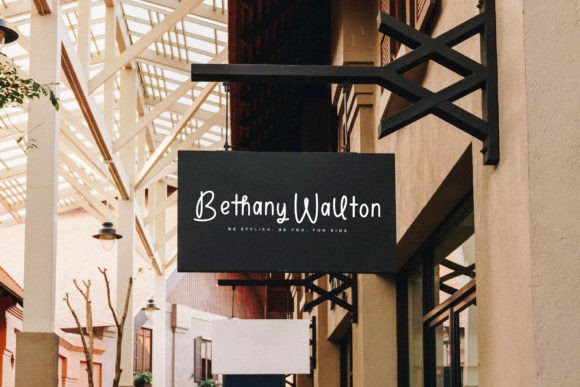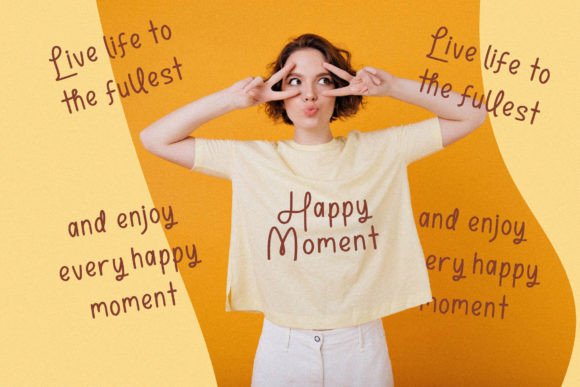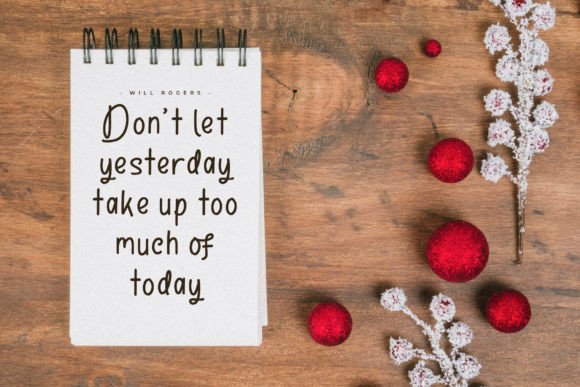
Introduction to Girlthown Font
Girlthown is a modern handwritten font suitable for any design project.
You can use it for logos, branding projects, homeware designs, product packaging, mugs, quotes, posters, shopping bags, t-shirts, book covers, name cards, invitation cards, greeting cards, labels, photography, watermark, or special events .
Key Features of Girlthown Font
Why Choose Girlthown Font?